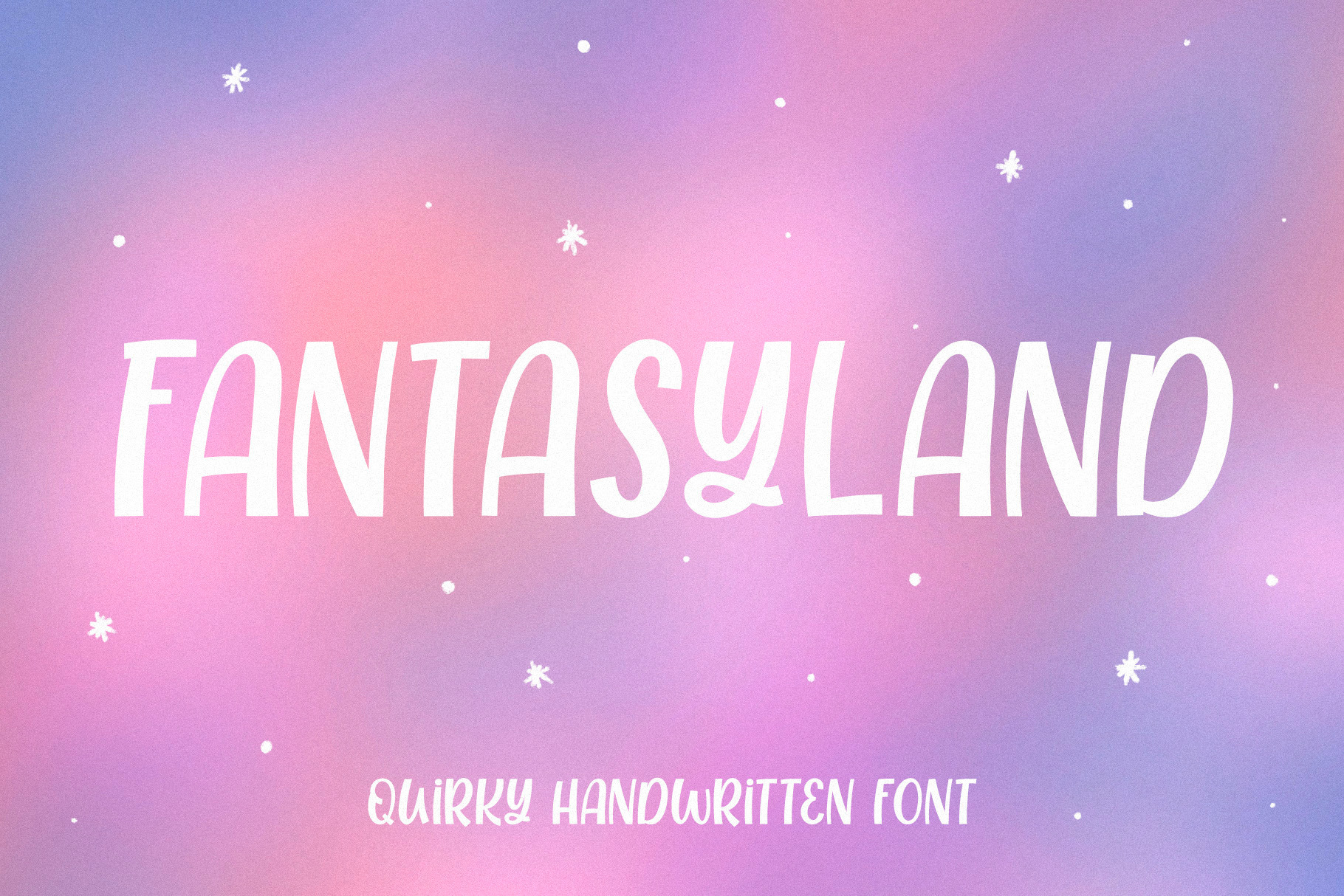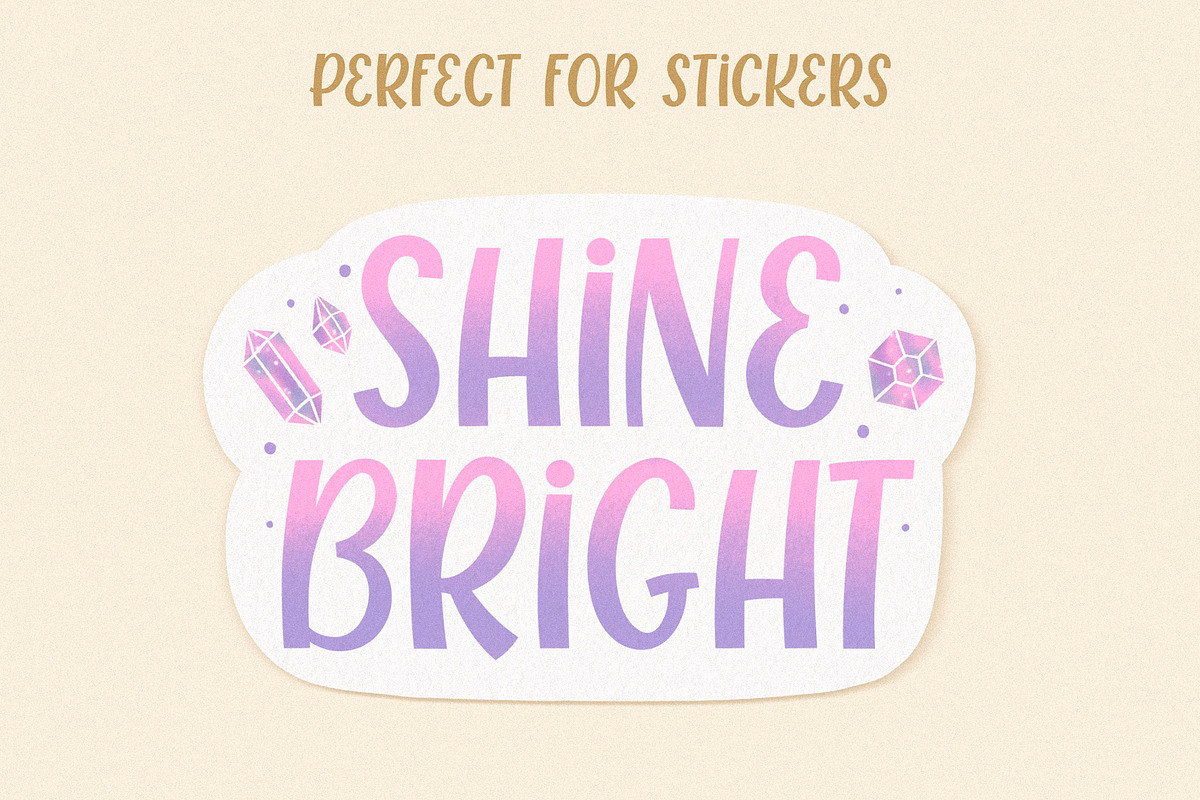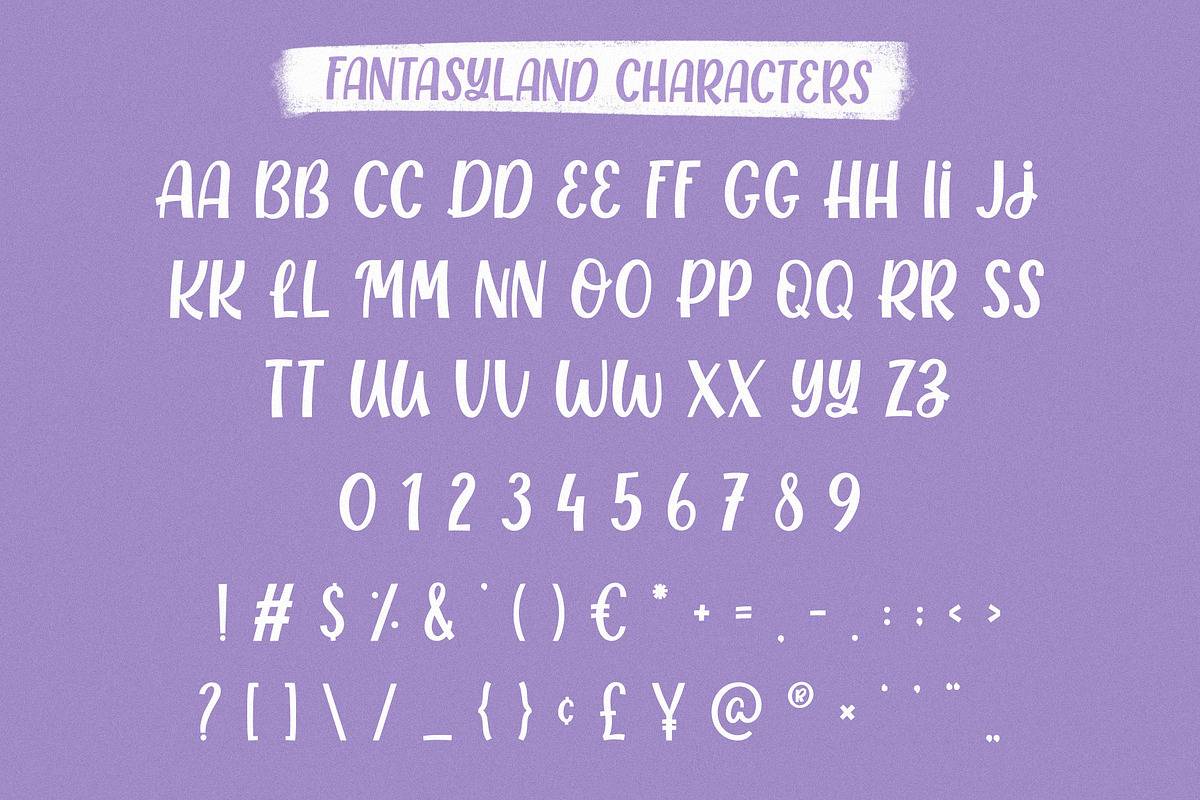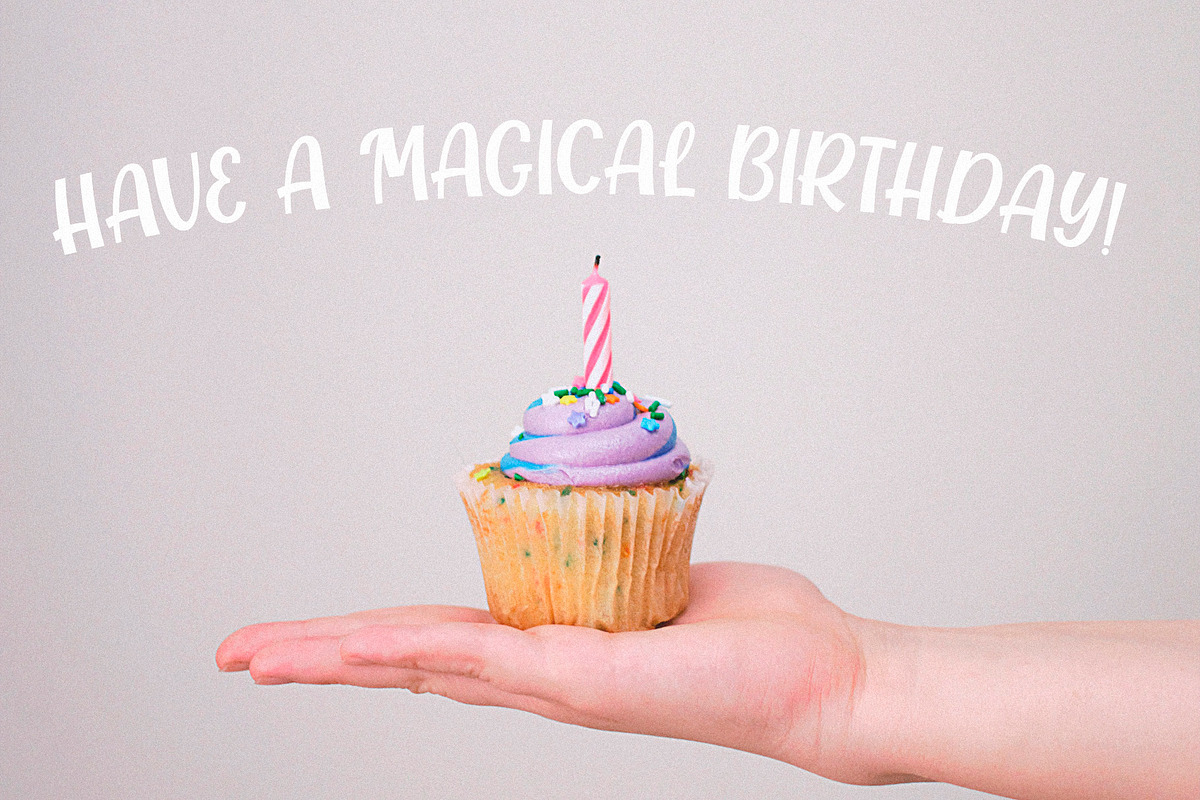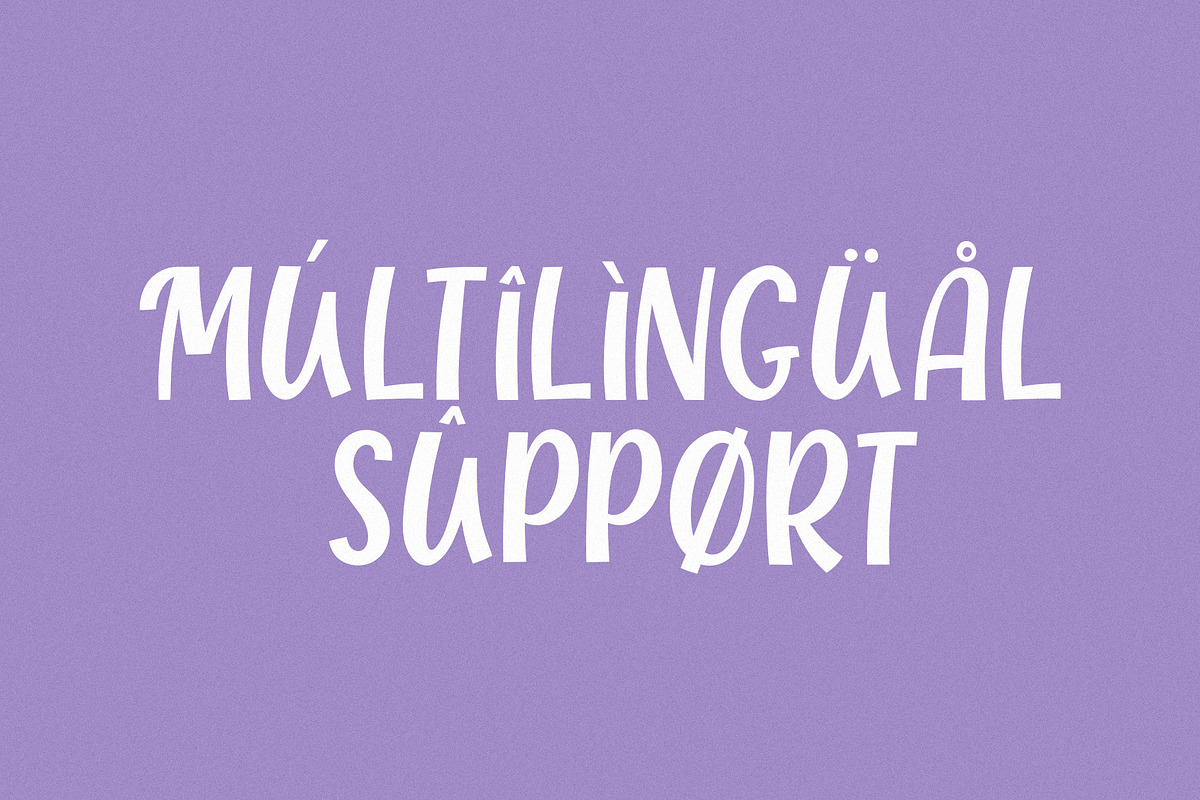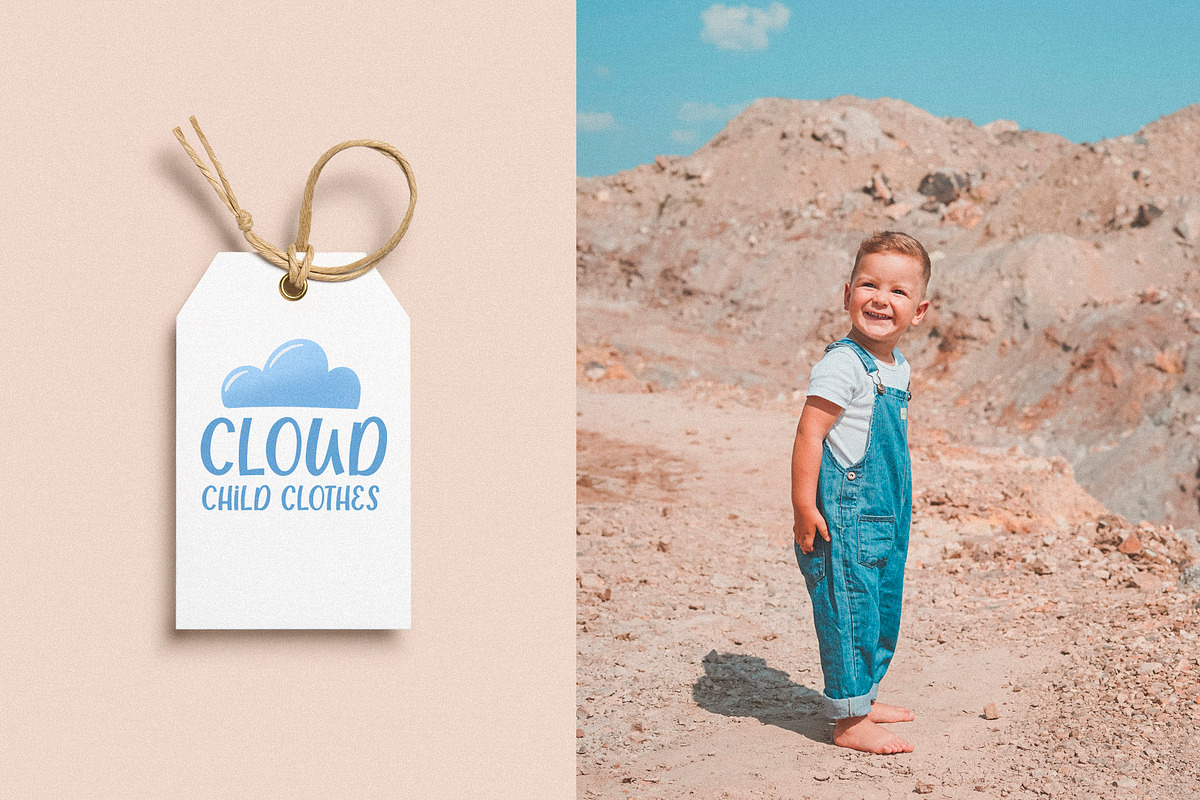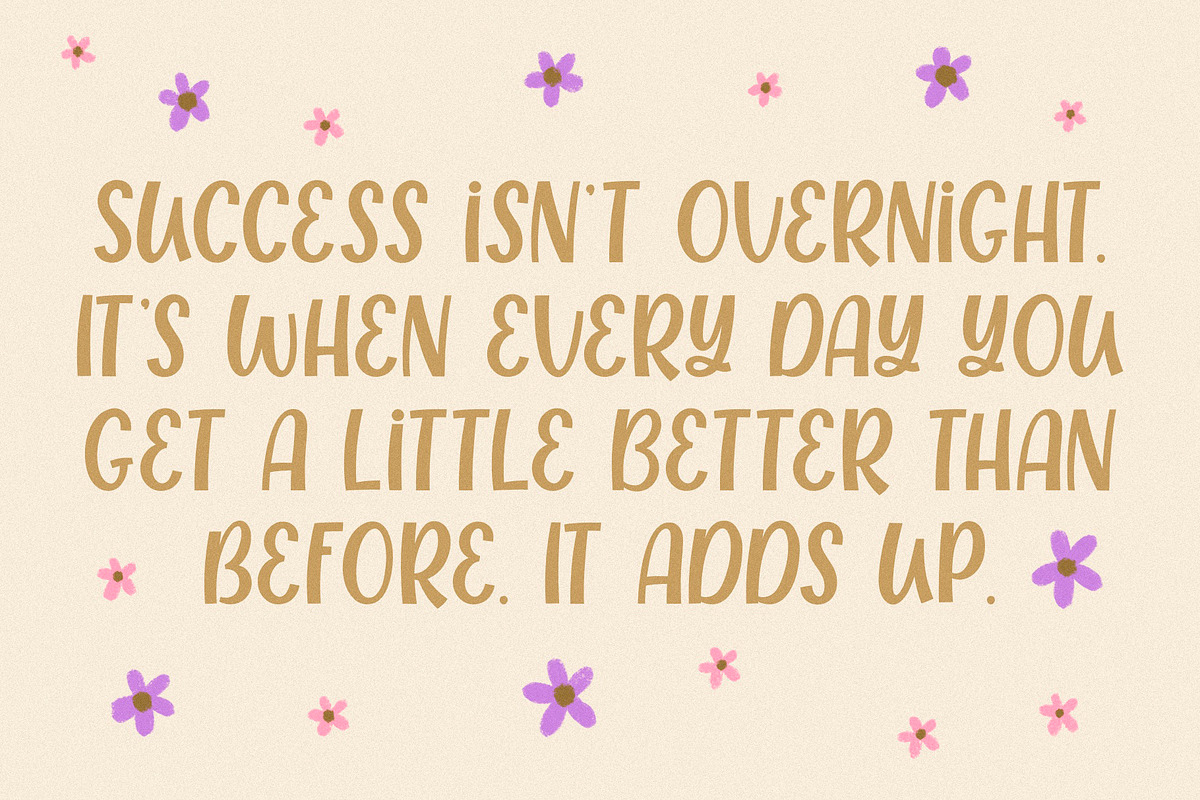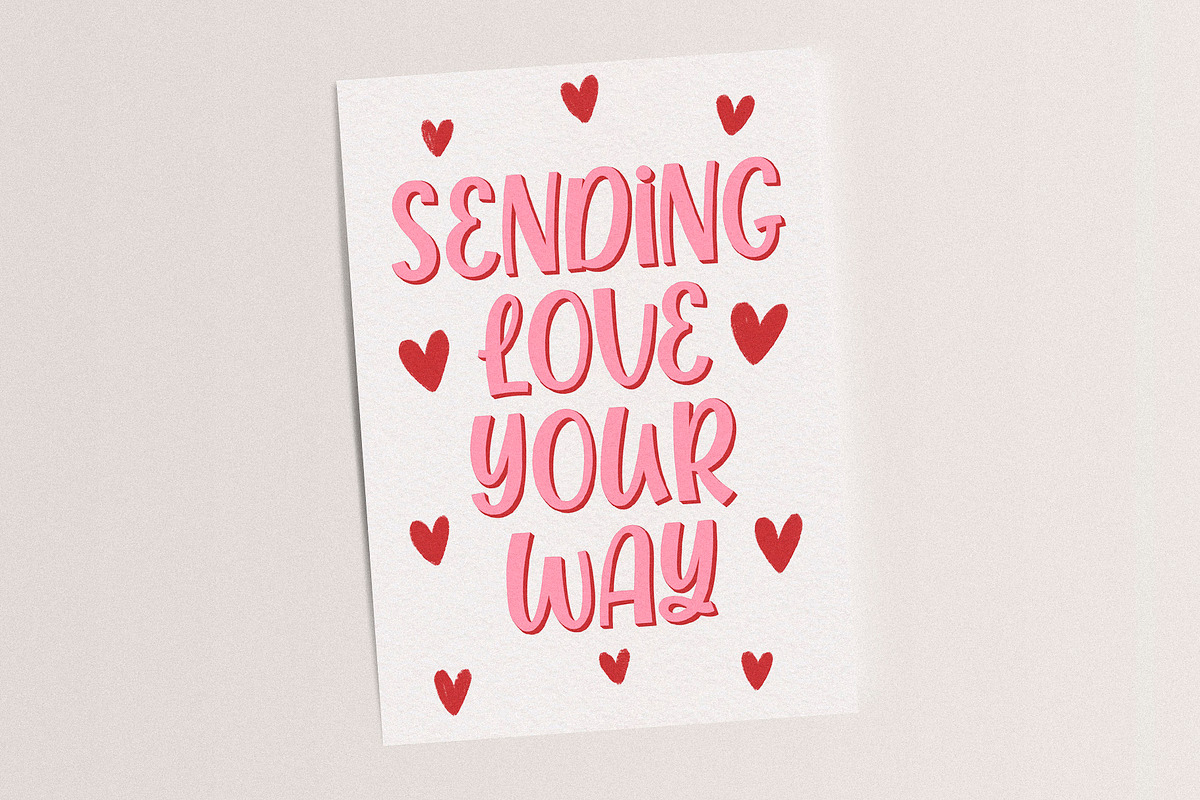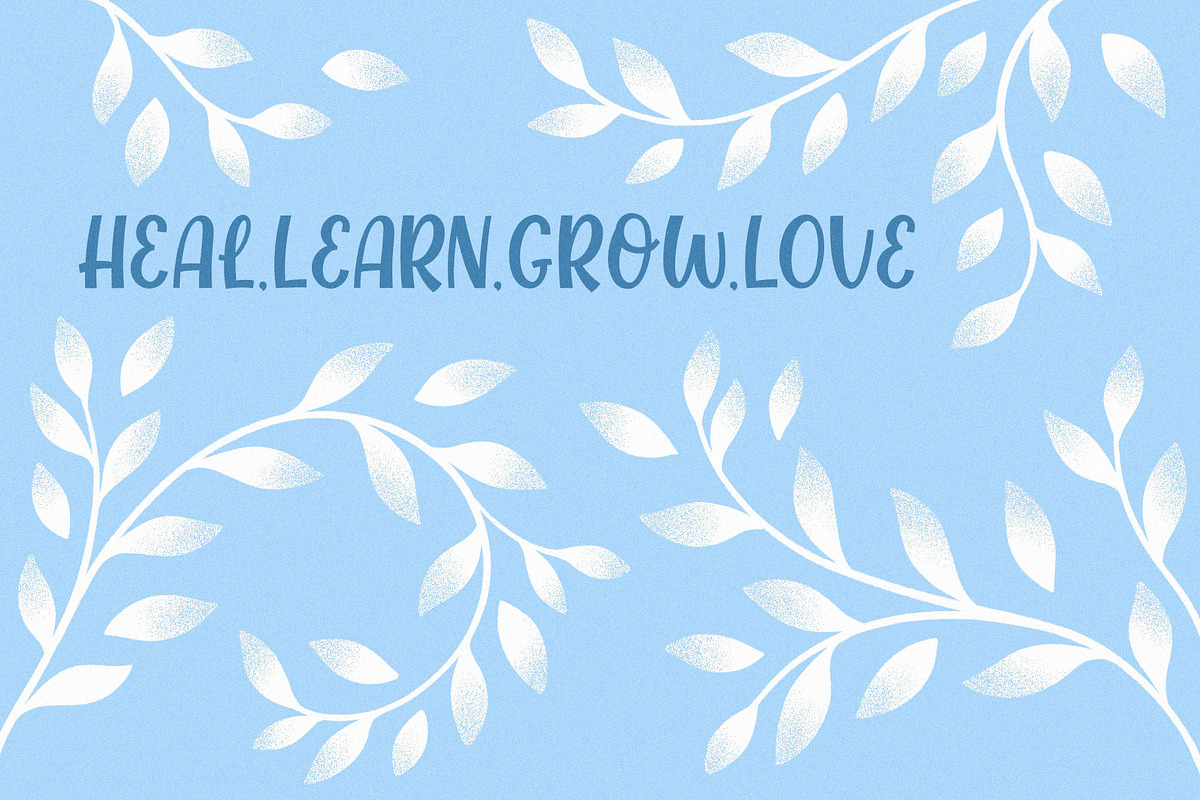
Fantasyland - quirky font
Fantasyland is a friendly handwritten font. It's perfect for social media quotes, stickers, scrapbooking, t-shirt design, branding, posters, and so much more.
Uppercase and lowercase letters, numbers, and basic punctuation. OTF and TTF files. Multilingual support.